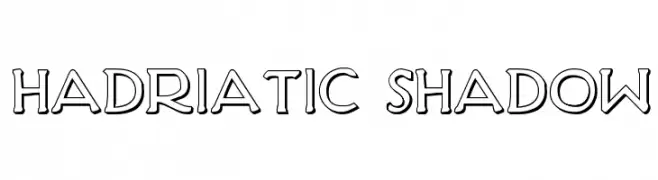
( Fonts by Koczman Balint - magiquefonts.gportal.hu )
A bold, decorative serif font with ornate detailing and vintage flair.
( Fonts by Cumberland Fontworks - http://www222.pair.com/sjohn/fonts.htm - S. John Ross )
A playful, hand-drawn font with bold, rounded strokes and a whimsical style.
A bold, decorative font with a distressed, vintage look and artistic flourishes.
( Fonts by Barry Bujol - theoriginal19.blogspot.com )
An ornate, calligraphic font with intricate swashes and flourishes.
A modern, geometric font with sharp edges and balanced spacing.
A modern serif font with elegant curves and clean lines.
A bold, italic font with a dynamic and elegant style.
A bold, shadowed outline font with a three-dimensional effect.